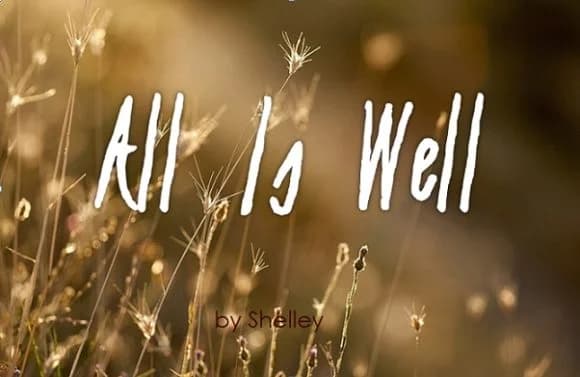
About All is Well Font
Calming and genuine. All Is Well from AICanvas brings an approachable warmth that feels right for projects where sincerity matters. The script's natural, flowing letterforms have a hand-written quality that reads as personal without feeling pretentious. It sits comfortably between formal and casual, maintaining legibility across different sizes and applications, which means it works in places where typical scripts fall flat.
This typeface excels on wedding invitation suites where every detail carries emotional weight, artisanal product labels on Etsy that need to catch eyes on crowded shelves, hand-lettered greeting cards that feel like someone sat down and wrote them just for you, and DIY home decor signs that transform blank walls into something with real meaning. The extended character set and multiple weight variations give you the flexibility to work across different projects, languages, and design scales without sacrificing readability.
All is Well Font is a script font that shines as a display or heading face. Pair it with a clean sans-serif or serif font for body text β the contrast creates a clear hierarchy while the two styles stay balanced and easy to read.
All is Well Font